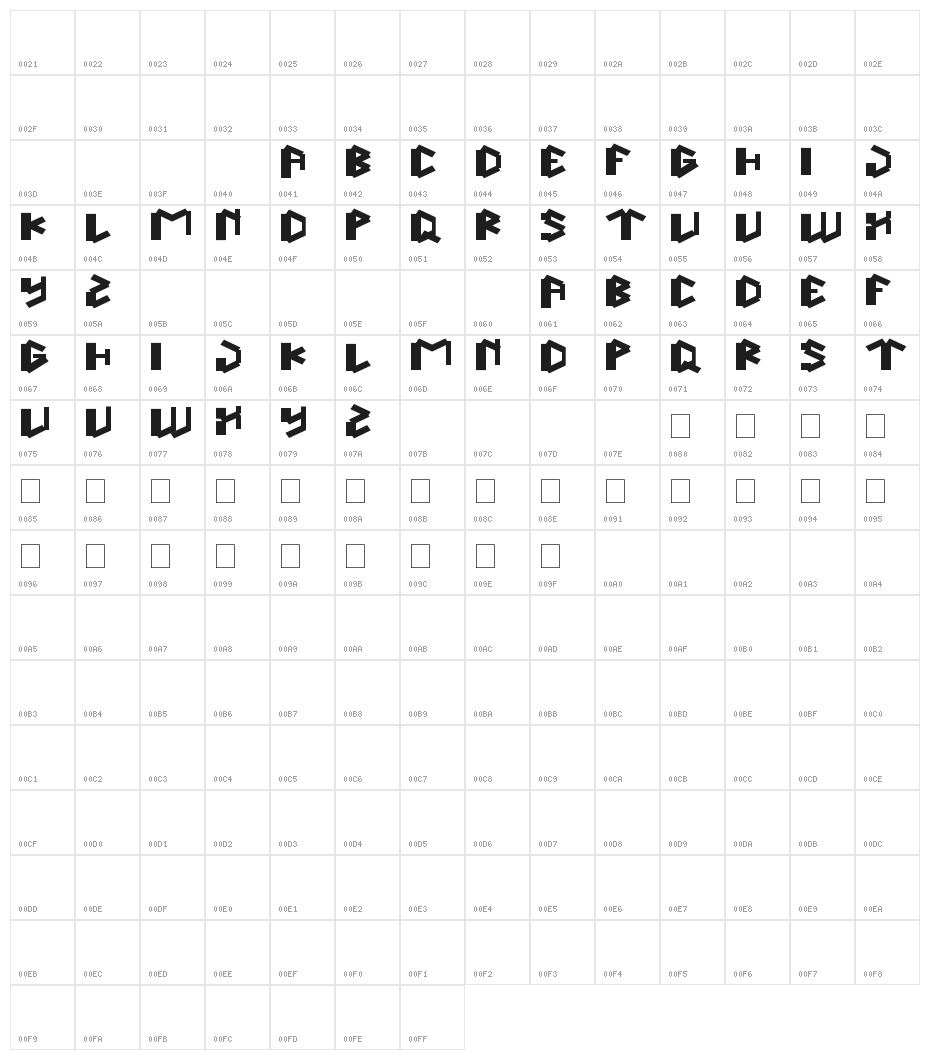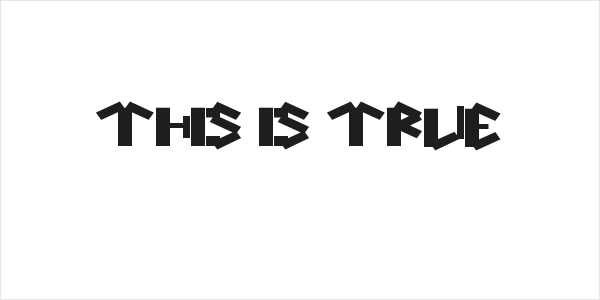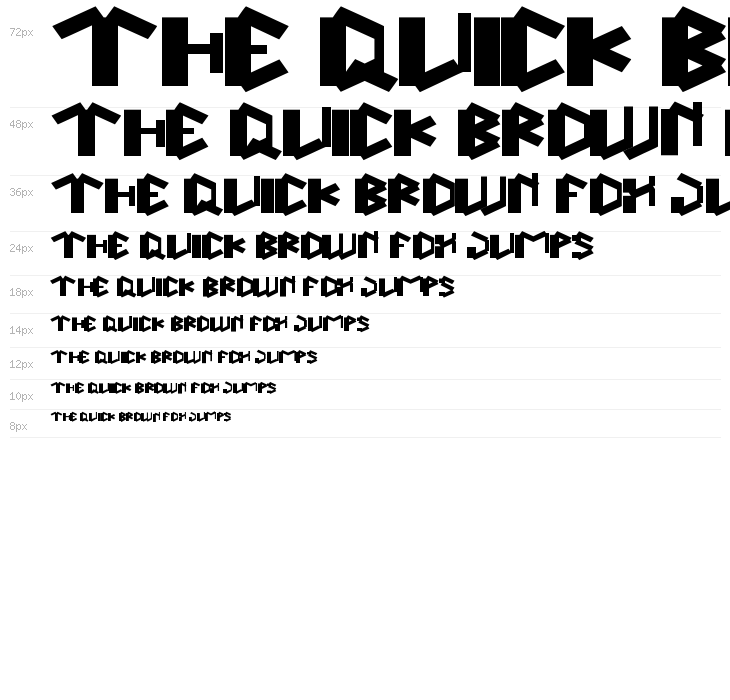
this is true Font
this is true Description
This font features a bold and angular design with sharp, geometric edges that give it a modern and edgy appearance. The characters are constructed with thick strokes and sharp angles, creating a sense of movement and dynamism. The uppercase letters are particularly striking, with a blocky and robust form that commands attention. The lowercase letters maintain the same angular style, ensuring consistency across the typeface. The numbers and special characters are designed to match the boldness and geometric style of the letters, making this font suitable for impactful and eye-catching designs.